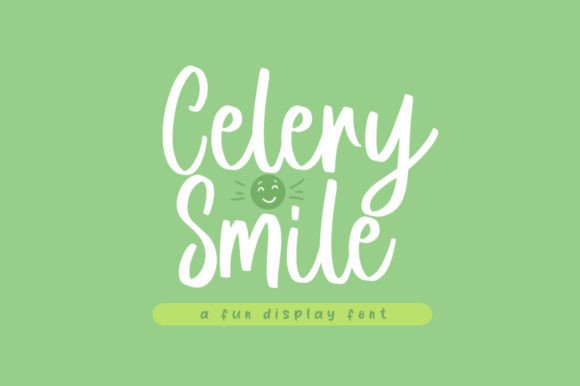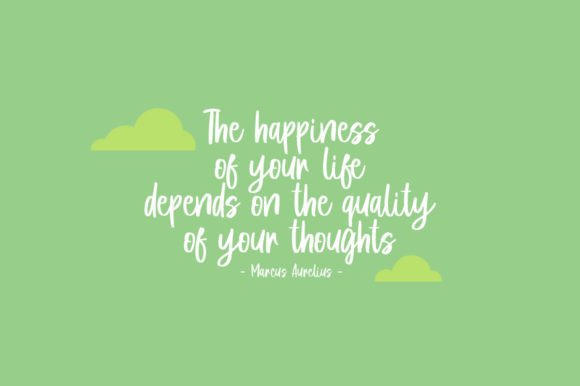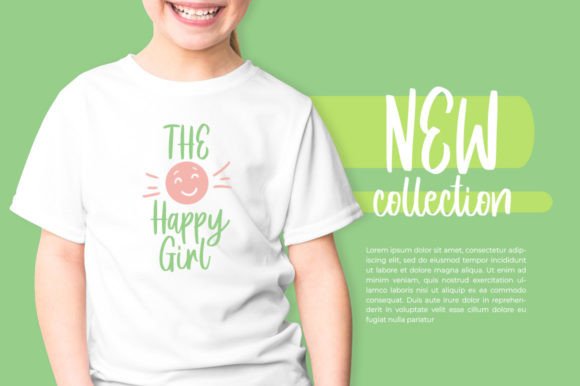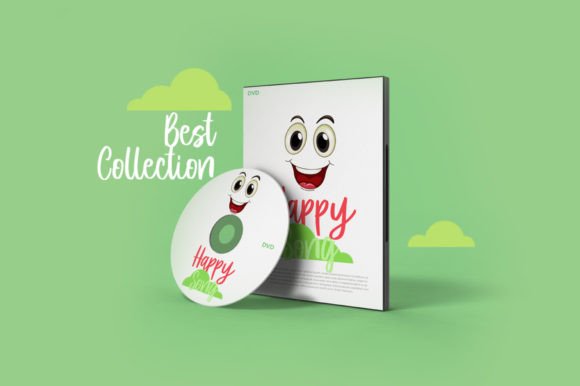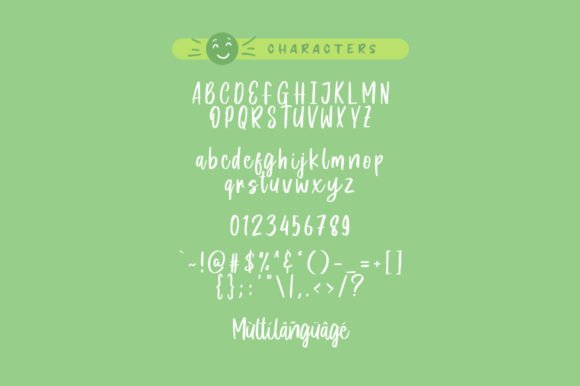
Bring a cool and friendly vibe to your creative projects with the Celery Smile font. This calligraphy script font is designed to add a playful and inviting touch to your designs. It is ideal for cartoon-related artwork, children’s games, and any project that needs a fun and lighthearted feel.
The Celery Smile font features smooth, flowing strokes that create a charming and approachable appearance. Its unique style helps your designs stand out by adding personality and warmth. Whether you are working on print or digital projects, this font enhances your creative vision.
Use the Celery Smile font for children’s books, game graphics, posters, greeting cards, social media posts, and more. It adds a playful spirit that makes your work more engaging and memorable. The font’s friendly look makes it perfect for designs targeting young audiences or casual themes.
Despite its playful style, the Celery Smile font maintains excellent readability across different sizes. Whether used for large headlines or smaller text, it brings clarity and charm to your designs.
Using this font will give your creative work a fresh and fun character. If you want to add a cool and friendly calligraphy script to your design toolkit, the Celery Smilefont is a perfect choice.
In summary, the Celery Smilefont is a cool and friendly calligraphy script. It’s great for cartoons, children’s games, and playful designs that need a warm, inviting style. Download it today and bring life and joy to your creative projects with Celery Smile.